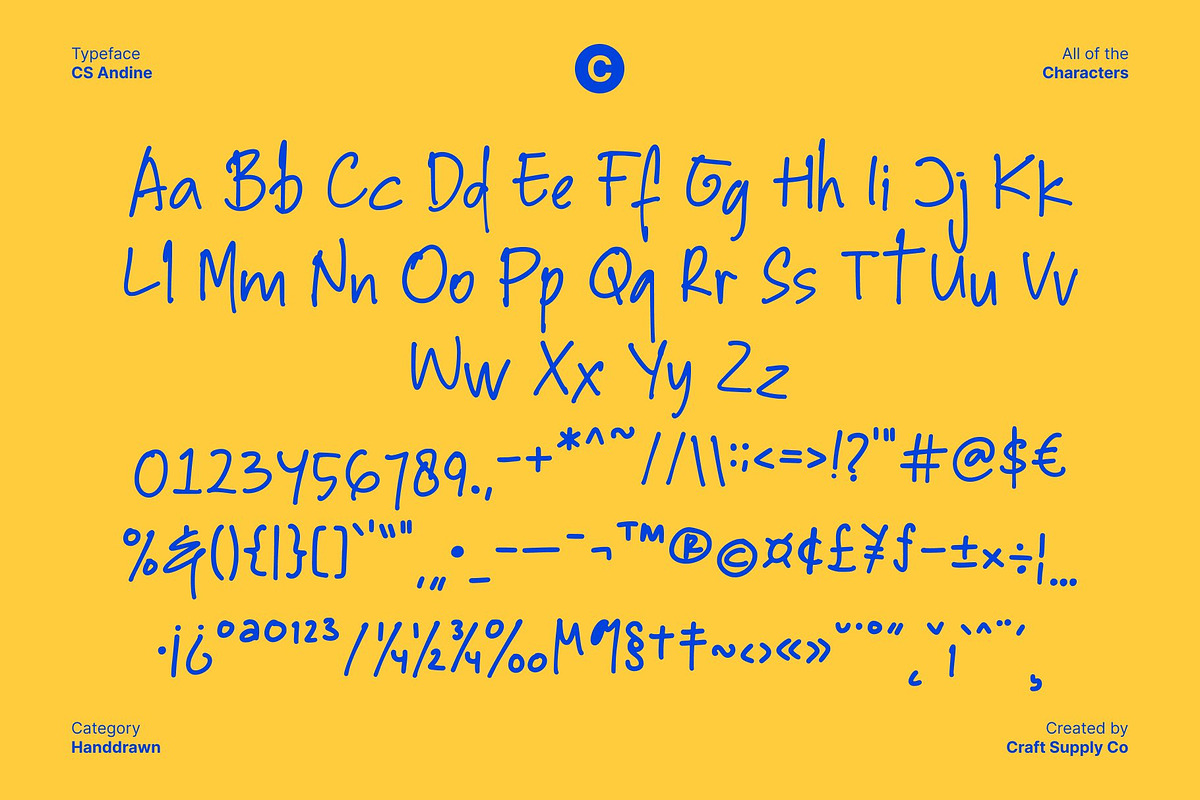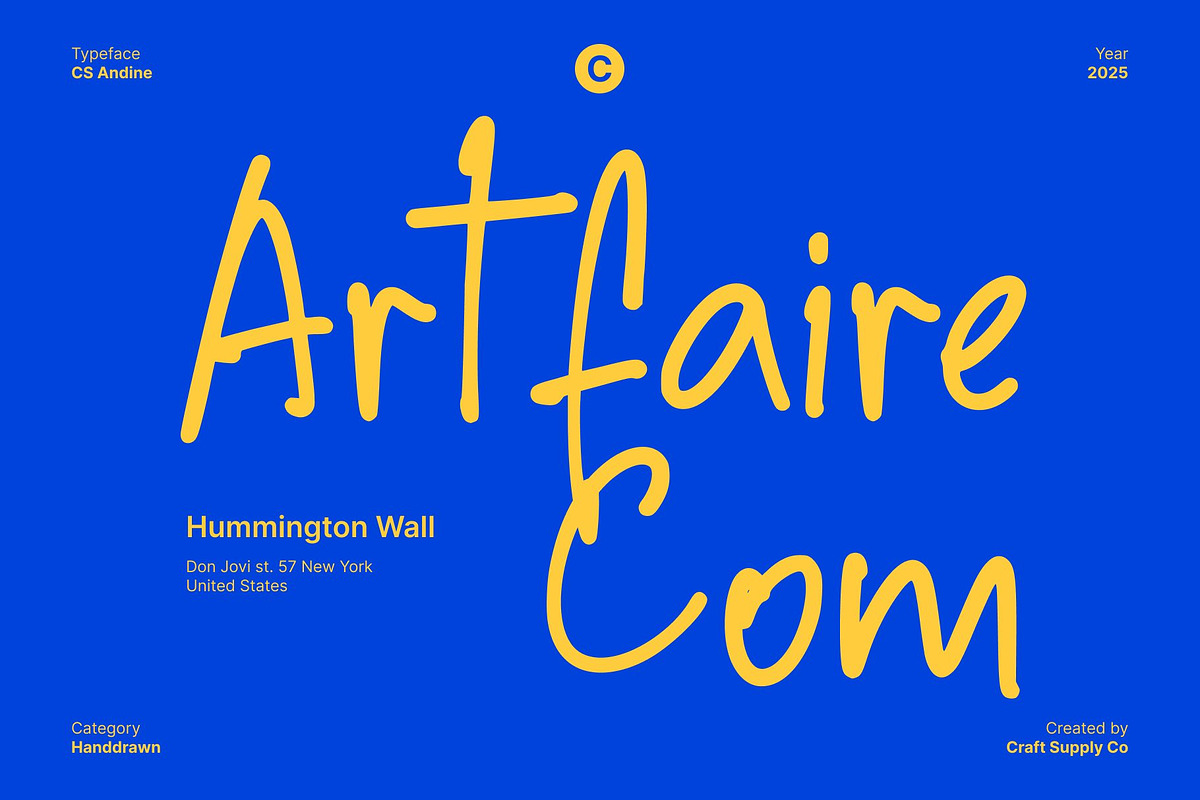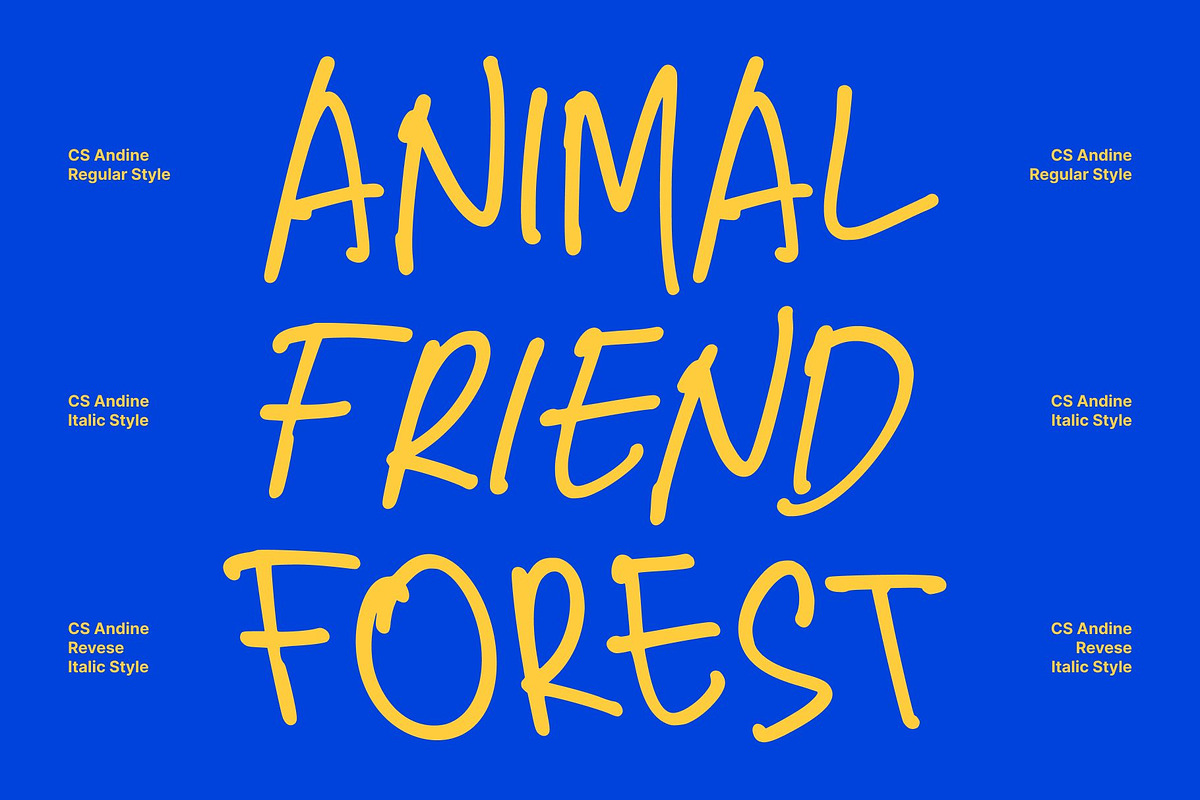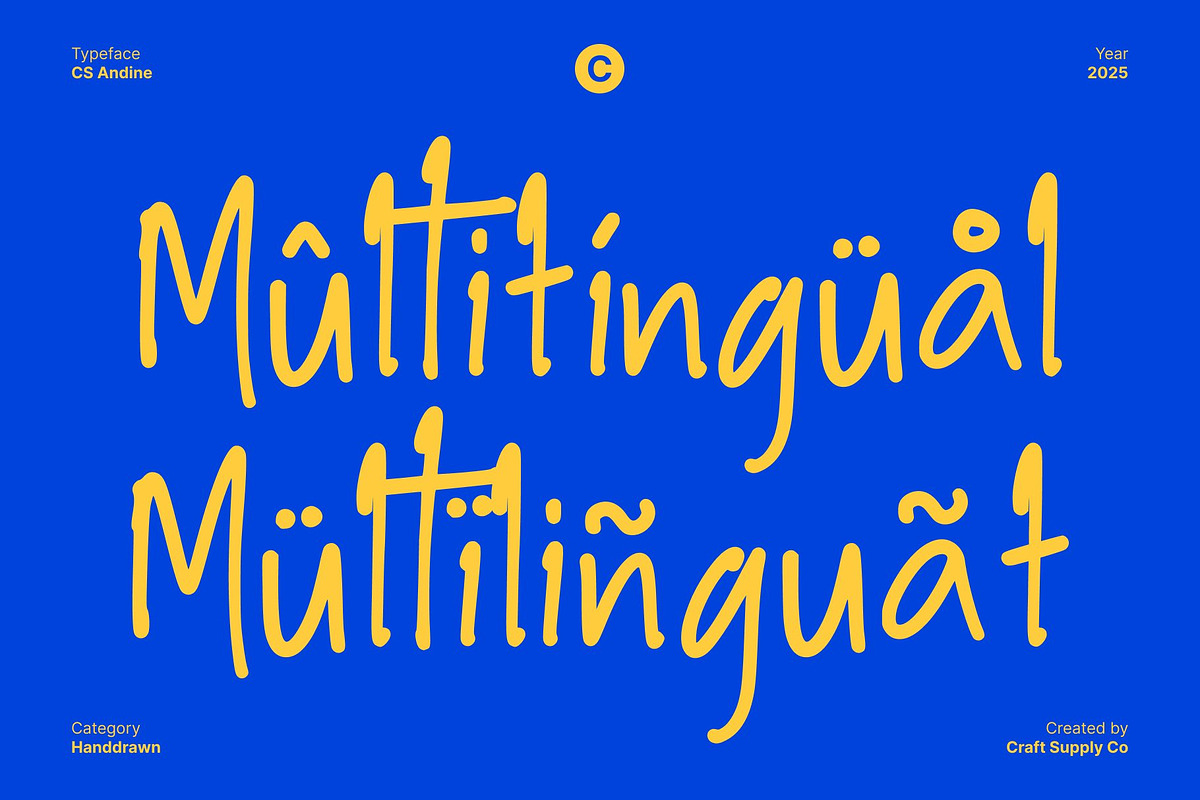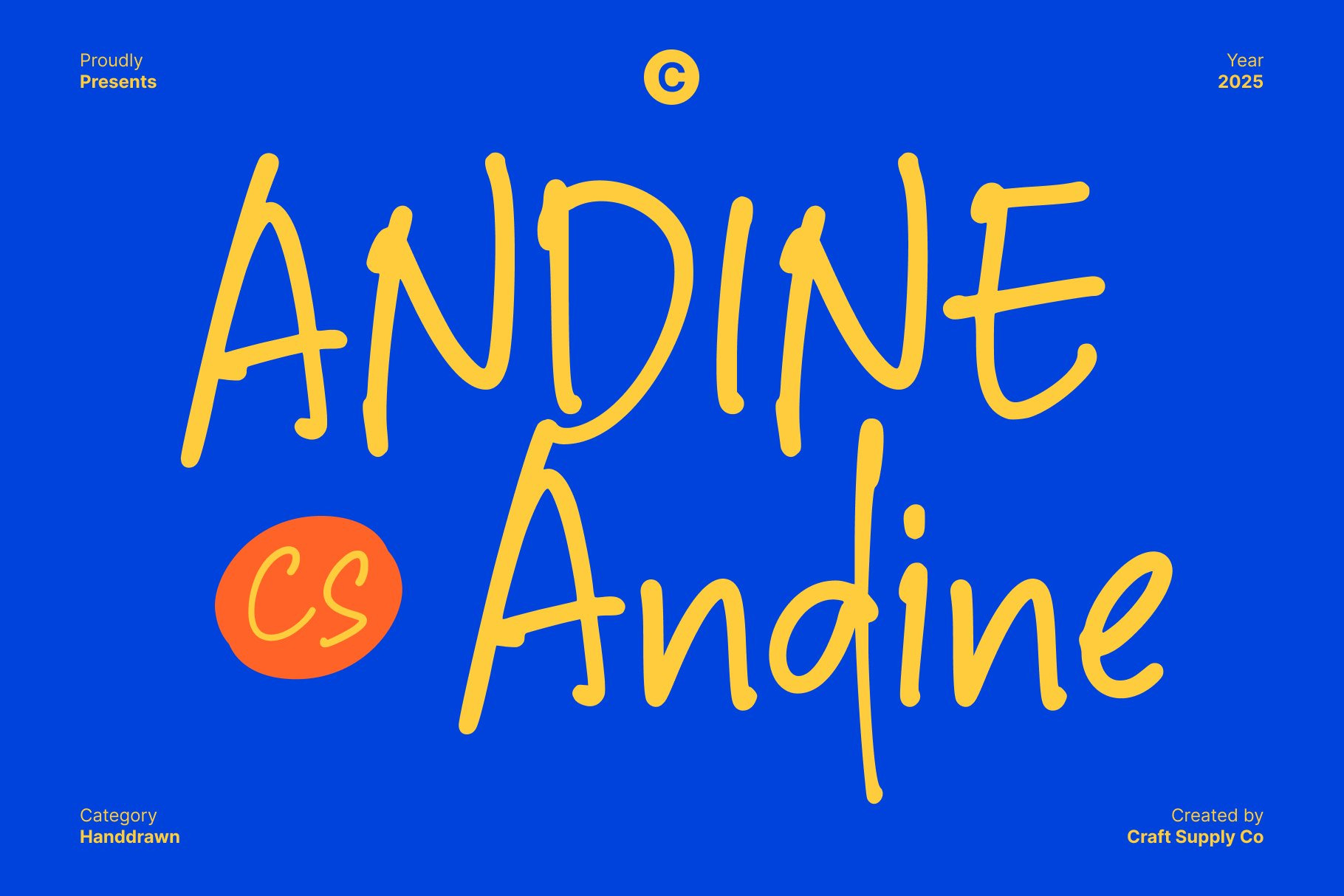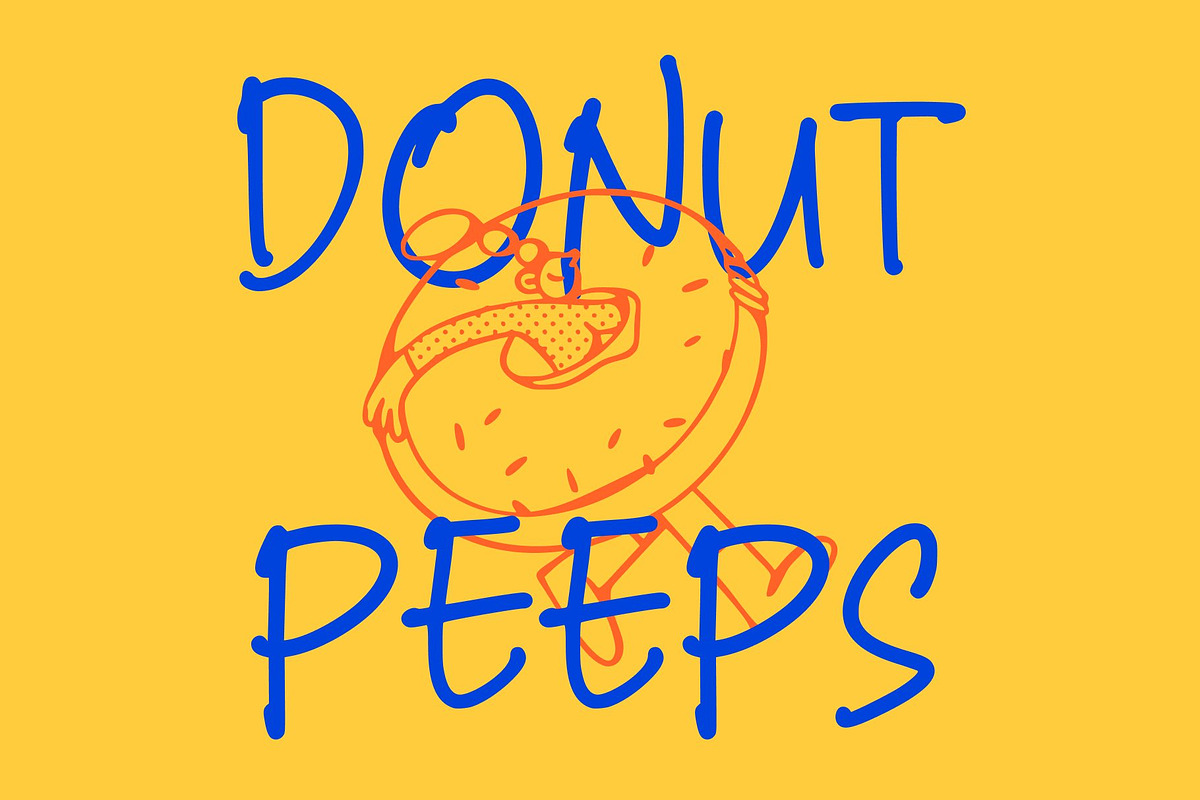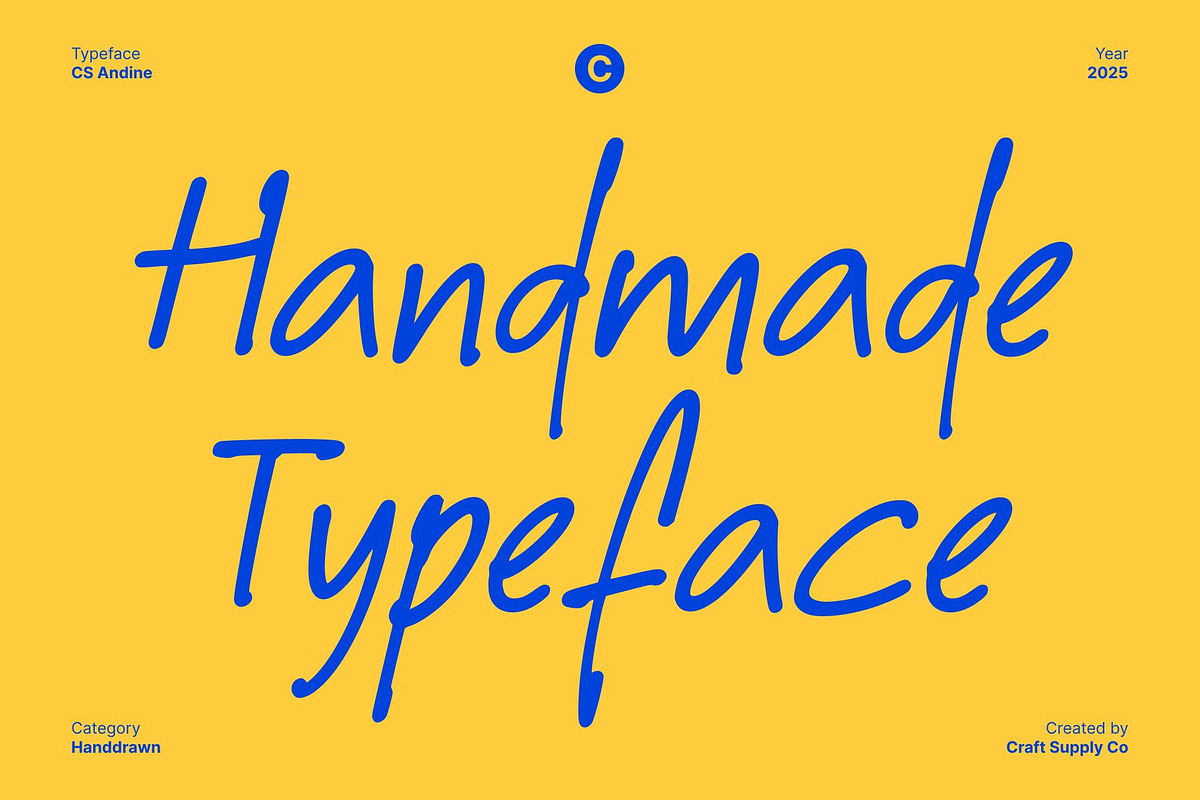
CS Andine – Handwriting Font
CS Andine – Natural Expression with Handcrafted Charm
Organic Handwriting Font with Authentic Flow This font captures the beauty of natural handwriting sans serif through its organic strokes and expressive rhythm. Each letter feels spontaneous and full of personality, making it perfect for designs that need a genuine, handmade touch.
Handmade Texture for Authentic Character The flowing forms and imperfect details bring out the warmth and individuality of true penmanship. This gives this font a friendly, approachable quality, ideal for labels, posters, quotes, or creative packaging that aims to feel human and heartfelt.
Versatile for Artistic and Personal Projects Whether used in branding, crafts, lifestyle products, or editorial design, this font adapts beautifully to both modern and rustic themes. Its expressive lines make it a favorite for designers seeking to add emotion and authenticity to their visuals.
Where Simplicity Meets Personality This font blends natural beauty with expressive charm, delivering a handwritten style that’s warm, creative, and unmistakably personal perfect for bringing a touch of humanity and artistry to any design.